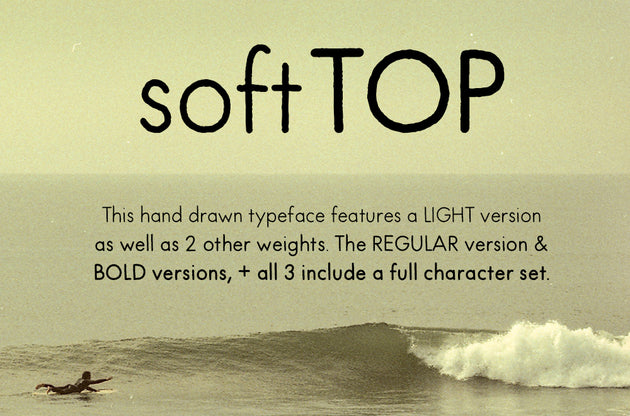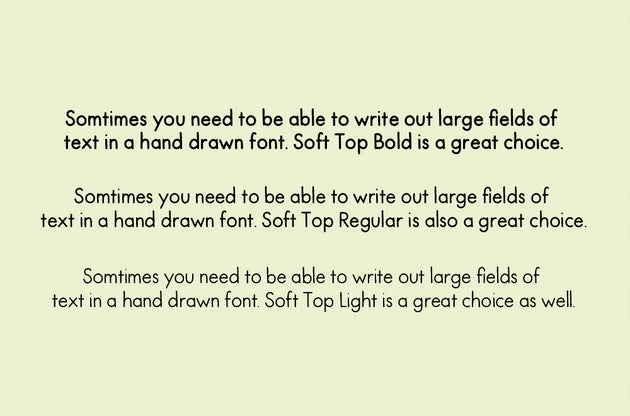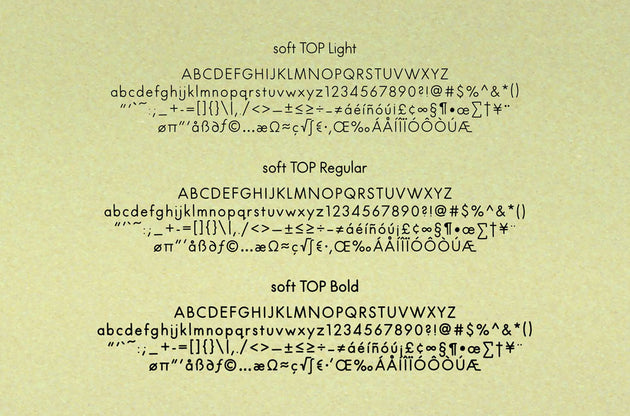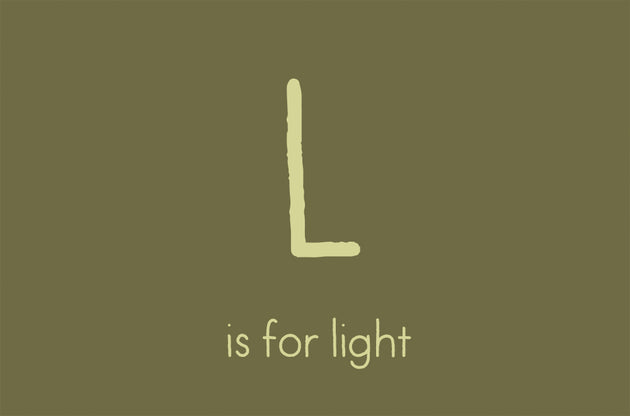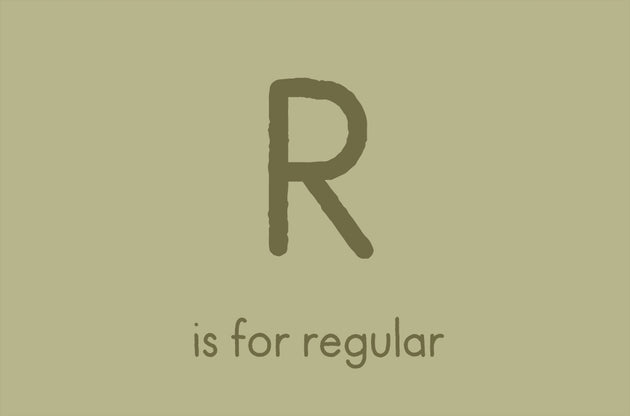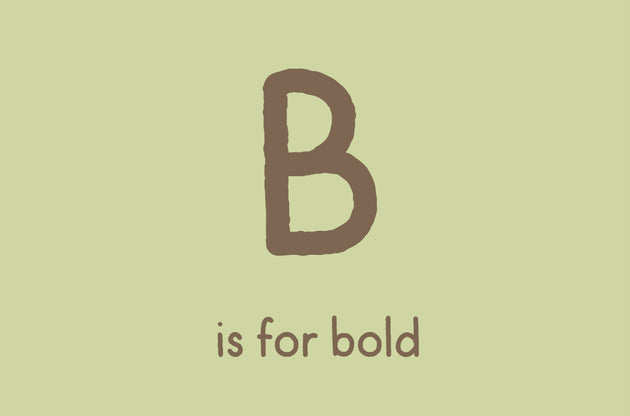
This font looks hand written because... it was hand written... outside of a computer.
Soft Top font is hand written typeface available in 3 weights - Light, Regular and Bold. This OTF font was written with marker pen, and the distinct strokes can add a hand written feel to any design.
Soft Top features a full character set for all of your publishing needs.
An OTF font Soft Top is infinitely scalable. Soft Top still possesses the nuance of a hand lettered font, while working just like any other font in your font library.